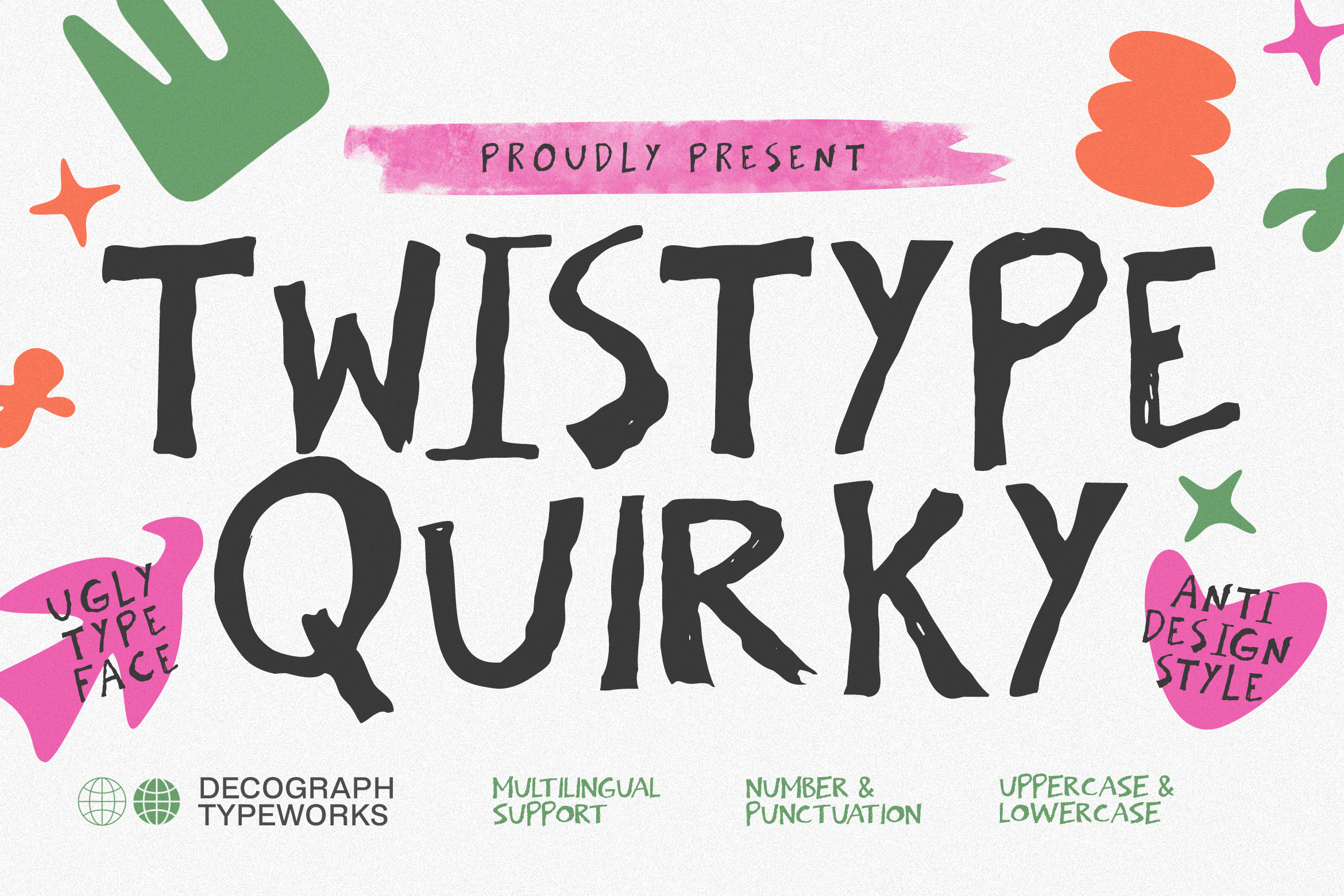
Twistype Quirky – Ugly Font
Twistype Quirky is an eccentric handwritten display font that embraces imperfection with bold irregular strokes, uneven structures, and a raw anti-design aesthetic that feels expressive, rebellious, and full of personality. Its intentionally “ugly” yet captivating style makes it perfect for standout branding, experimental posters, edgy social media graphics, and creative projects that break the rules—delivering a handcrafted, chaotic charm that feels authentic, playful, and visually unforgettable.
- Smooth Kerning